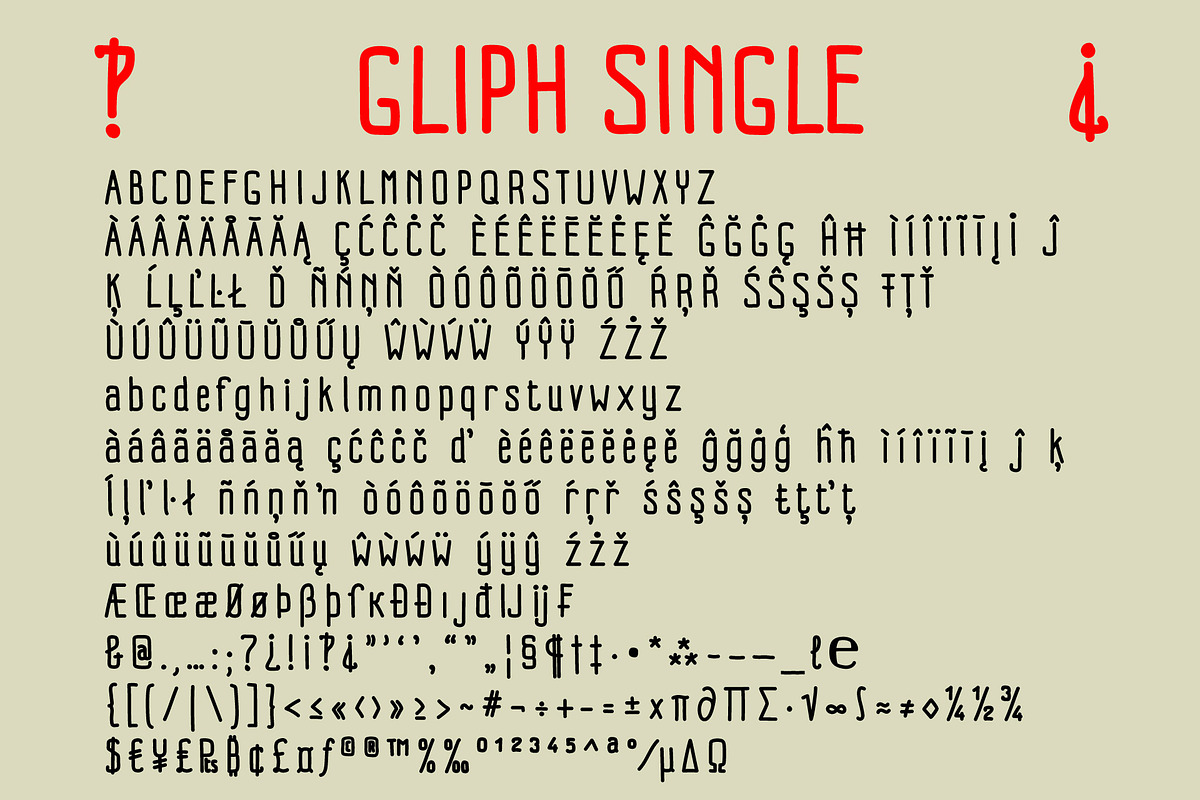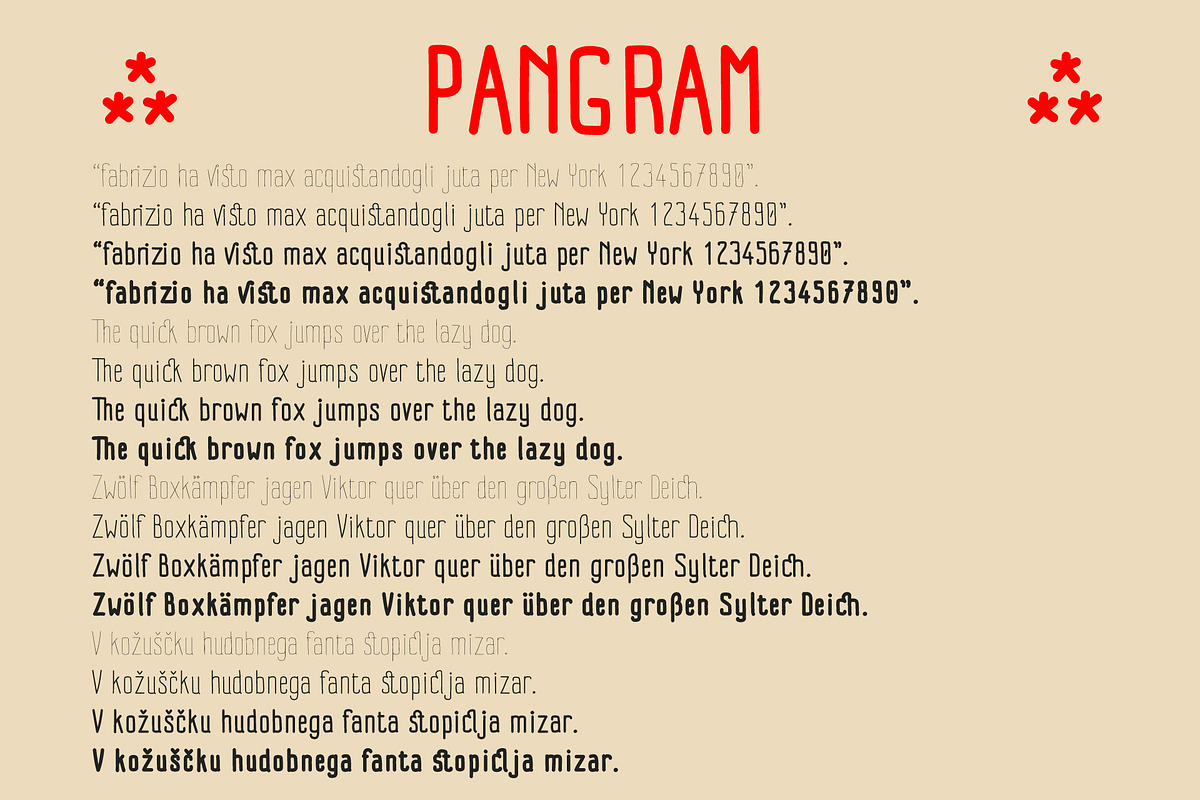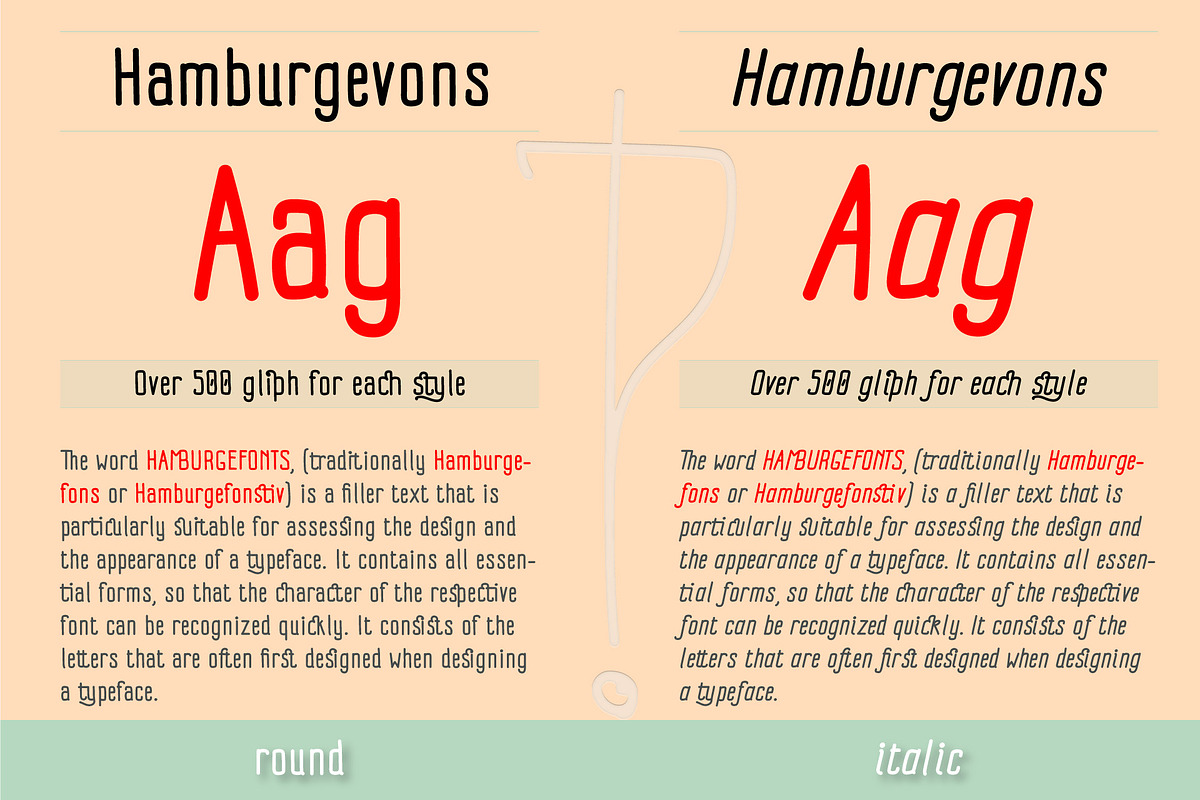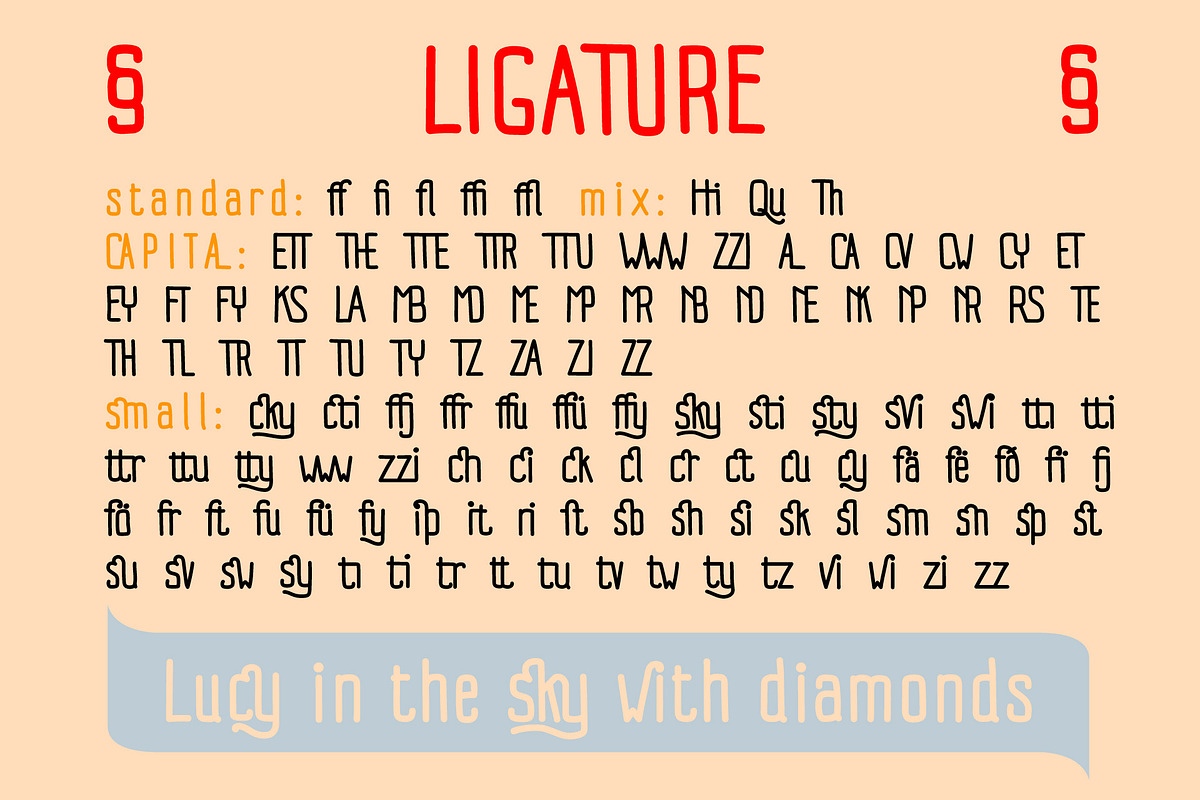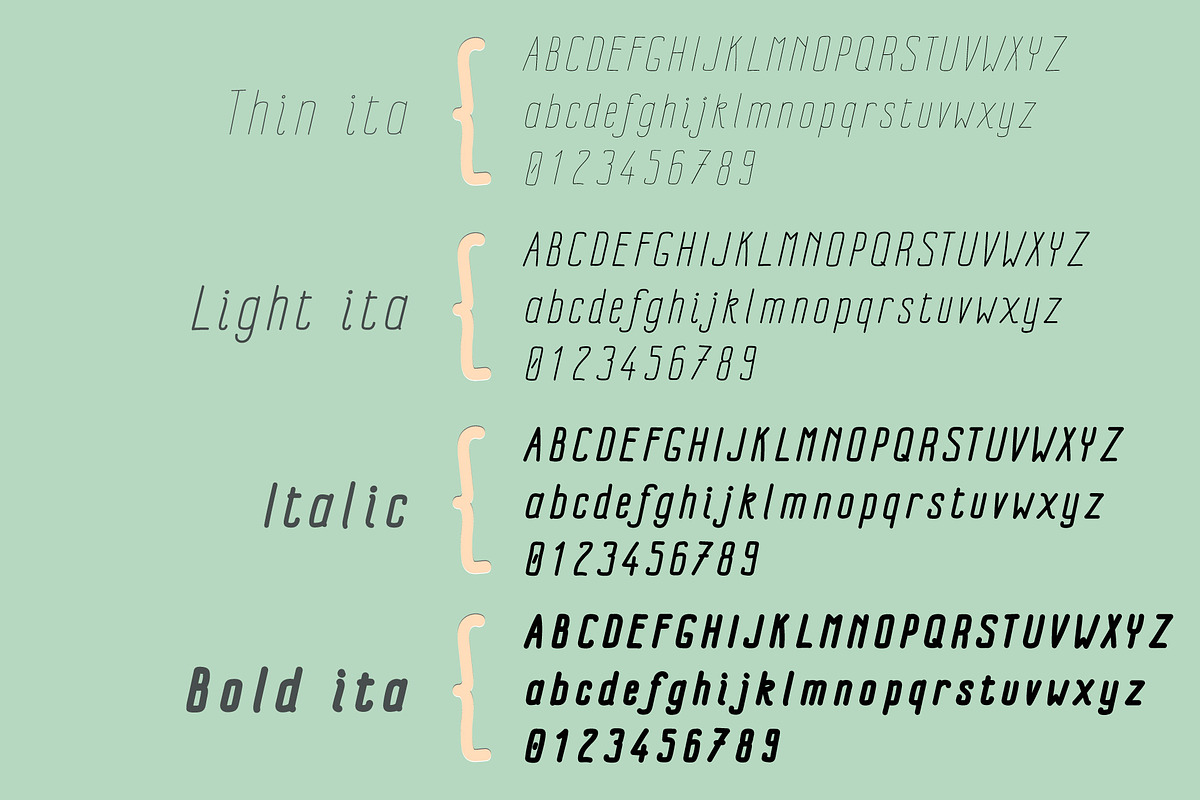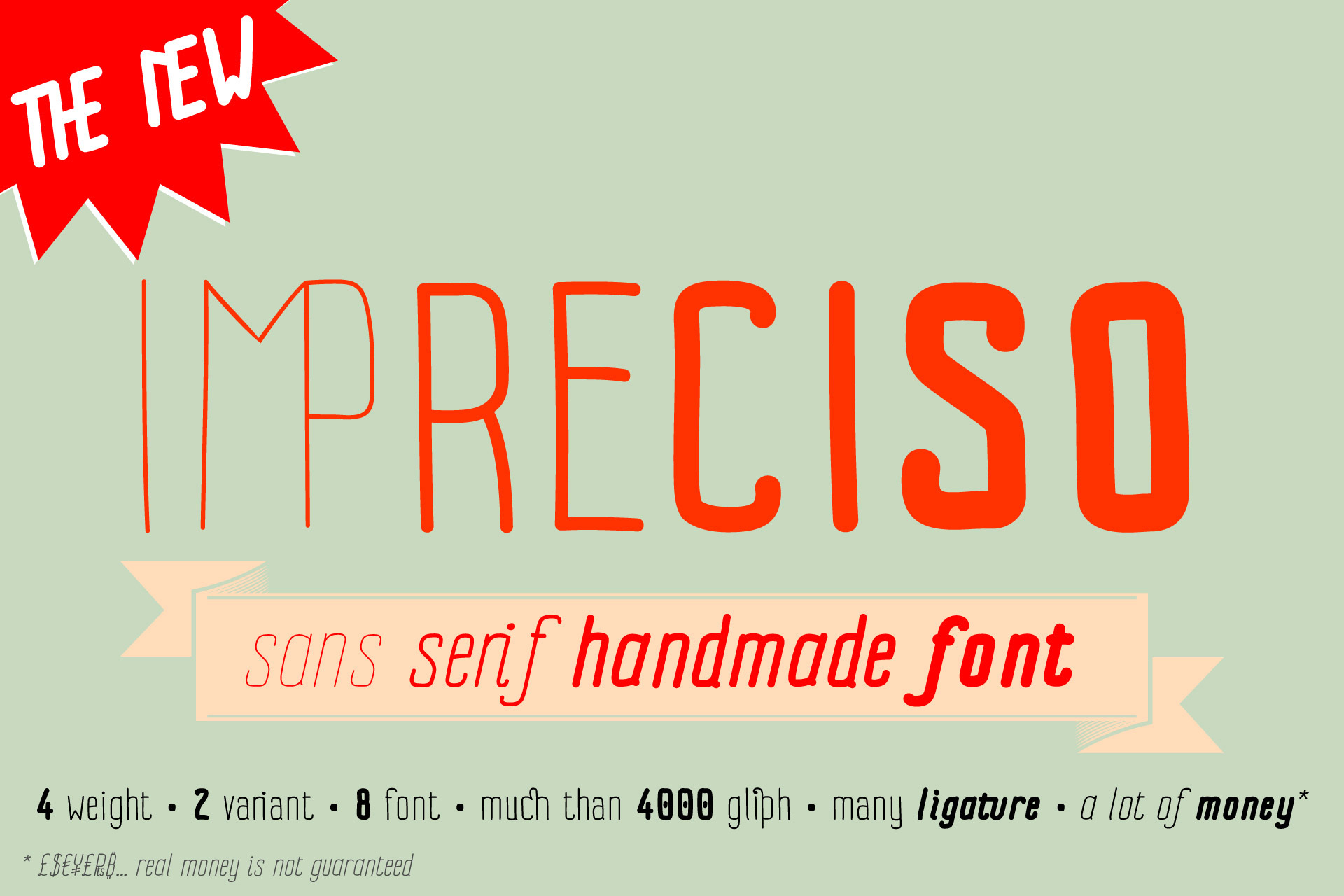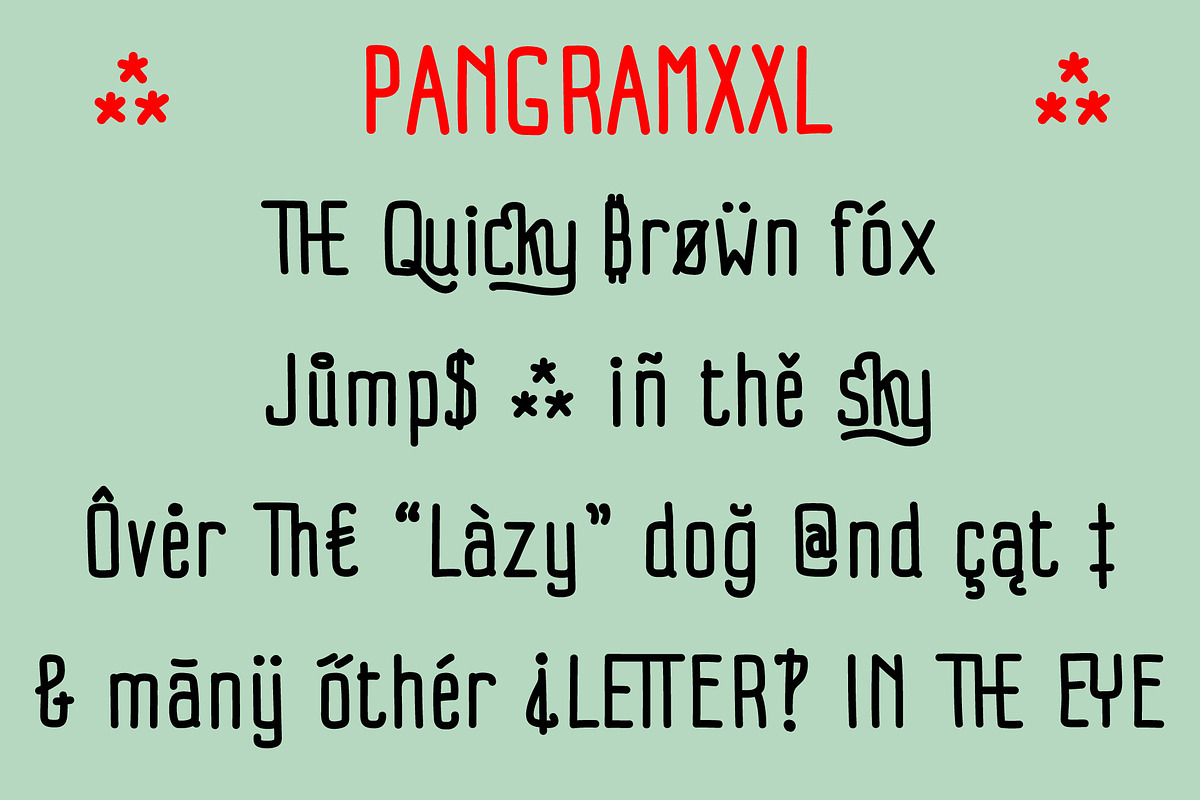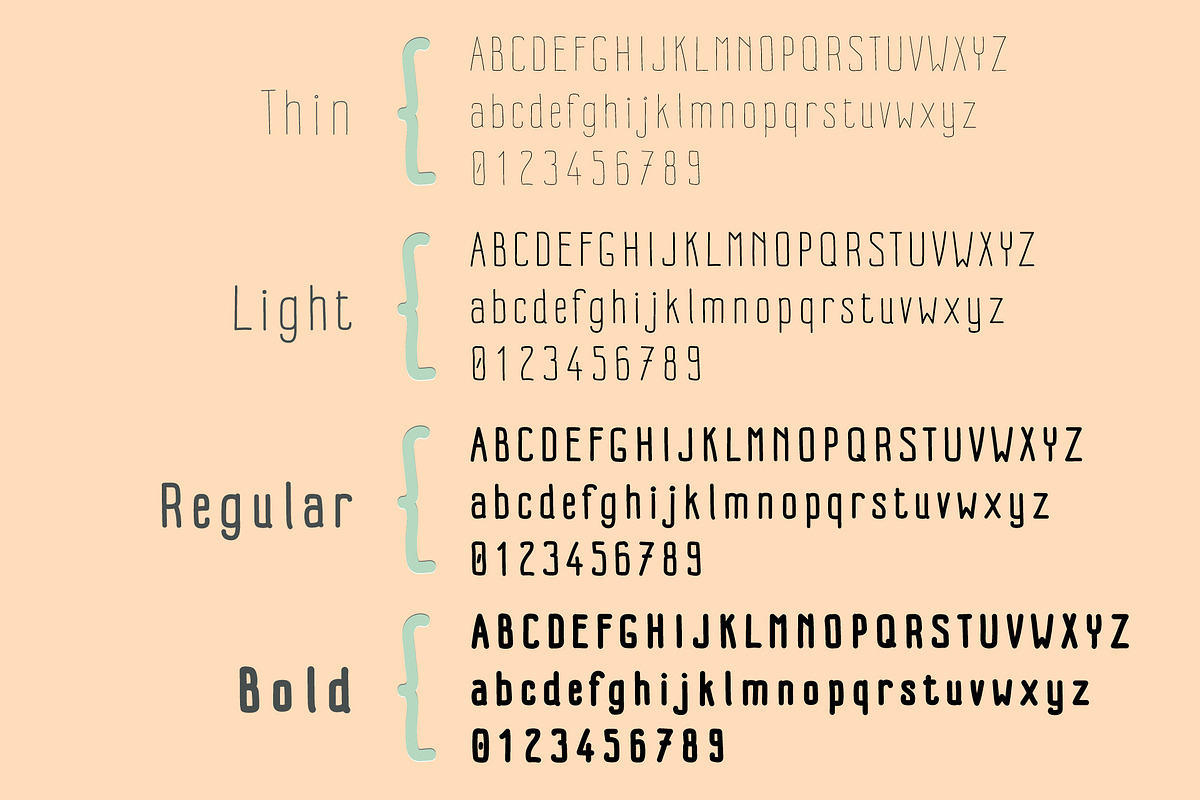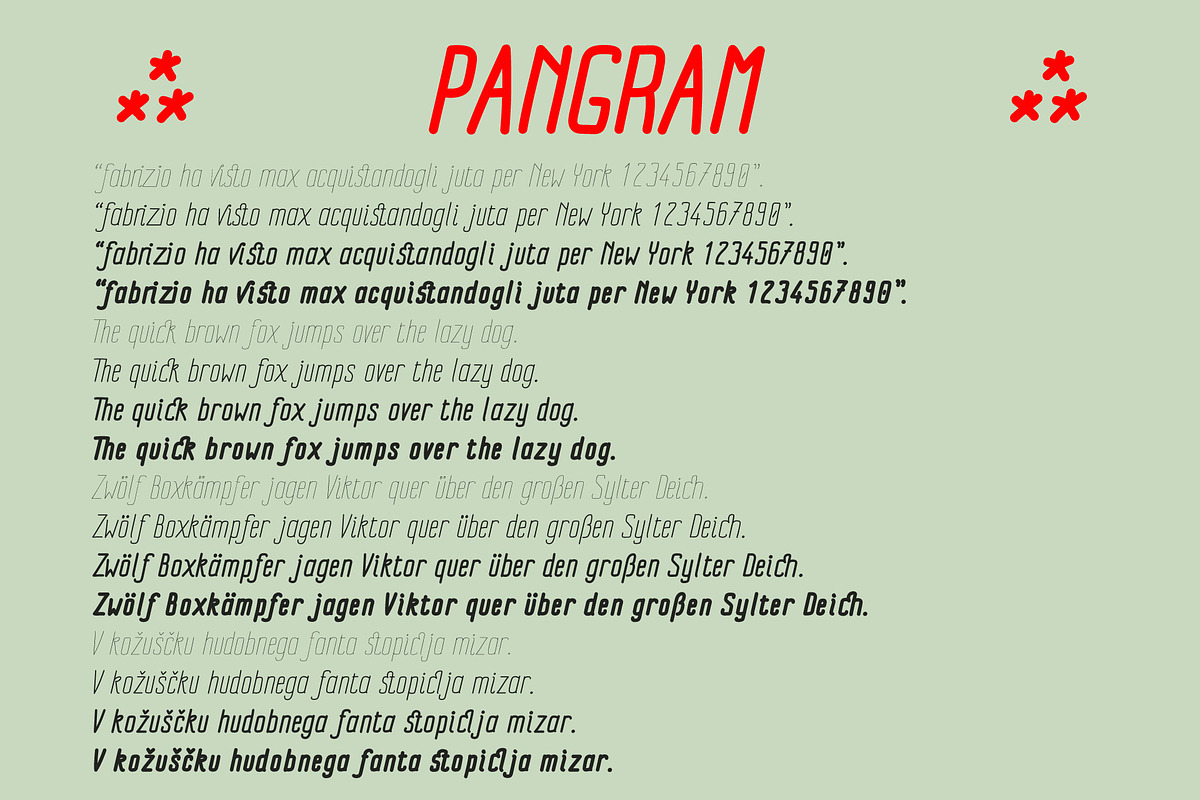
Impreciso - sans serif handmade font
Impreciso is a brand new Sans Serif script family font, completely handwritten.
Currently v1.0 it comes in 8 styles:
- thin + thin italic
- light + light italic
- round + italic
- bold + bold italic
Each one contain up to 500 total gliph, up to 110 extra ligature (opentype feature DLIG), kerning table.
Impreciso family is incredibly useful on most of creative field like magazine, logo, poster, book, composition and it's a great ingredient to have in every kitchen!